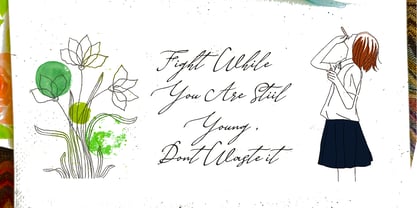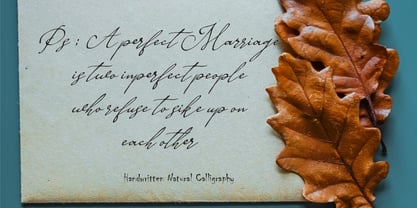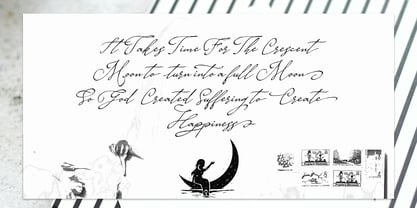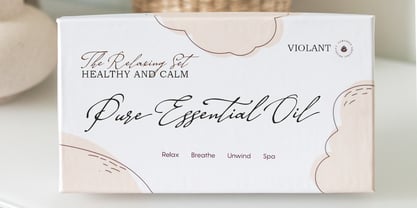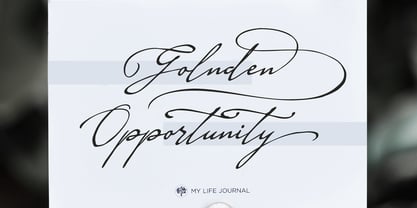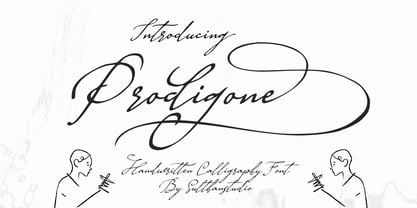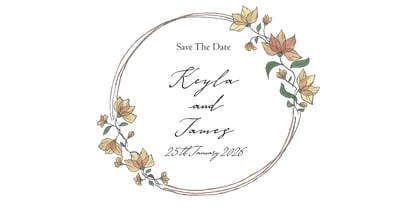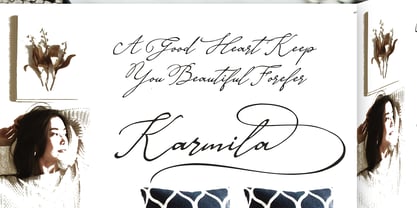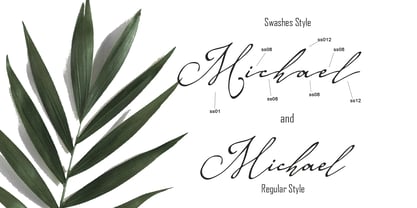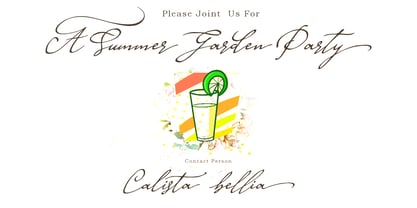
Prodigone
by Sulthan Studio
The Prodigone Font Family was designed by Nasrullah and published by Sulthan Studio. Prodigone contains 1 styles. More about this family
Prodigone Natural handwritten calligraphy font is here for you. This font is designed to look natural written with a luxurious cheerful feel! plus a touch of charming luxury!
To add to its unique charm, you will find a wide selection of classy initial and final letter alternatives in its Opentype feature. There are also Ligatures (special letters combined to look more natural) and common letter alternatives to choose from (see the preview image for all available characters).
Perfect for greeting cards, invitations, unique prints and posters, classy wedding trademarks, illustration work, and any project or brand that needs a touch of playfulness, elegance and nature!